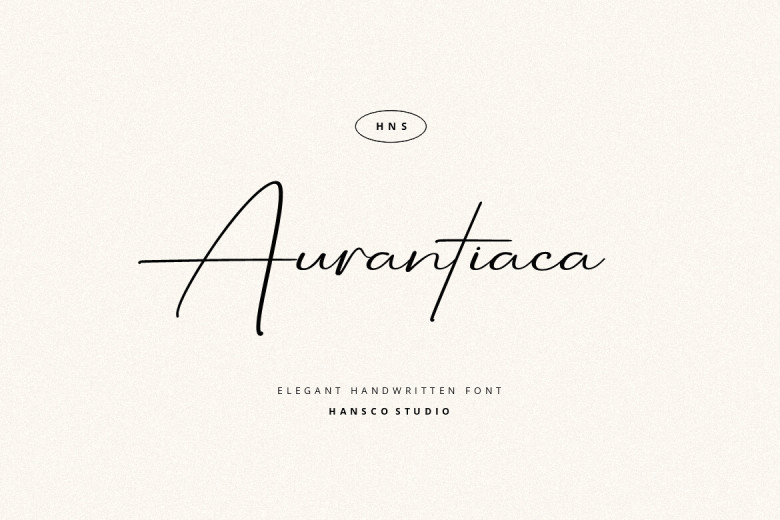
Aurantiaca Font
Aurantiaca Signature is a modern, casual and feminine handwriting font. These projects include commonly bound quotes, menus, taglines,flyers, posters, invitations,greeting-cards-postcards-booking-cover3_poster2-bcpostcard-business-marketing-card_gd letterheads circulars letters stationery and much more! it comes with a full uppercase, lowercase, numbers, punctuation, ligature character as well with extensive language support it’s going to be very usable adding into your project.
Aurantiaca Signature Font